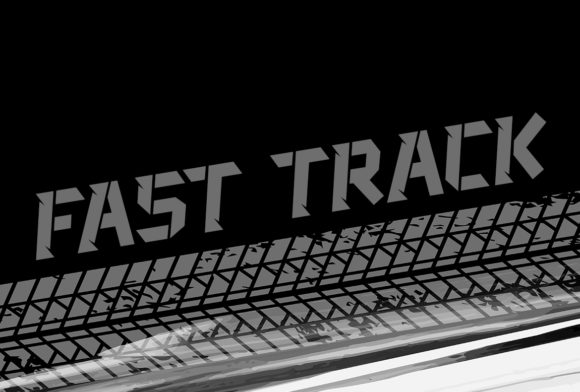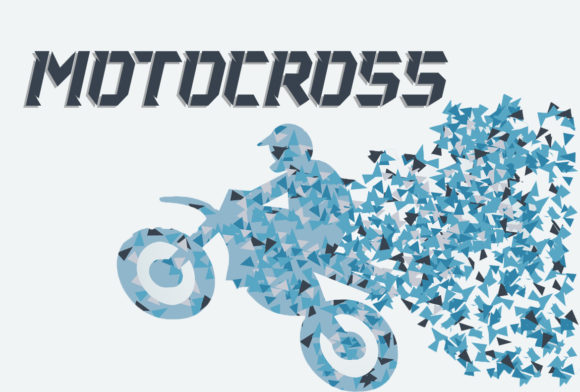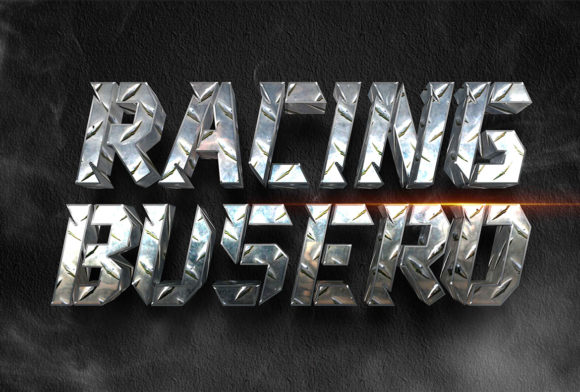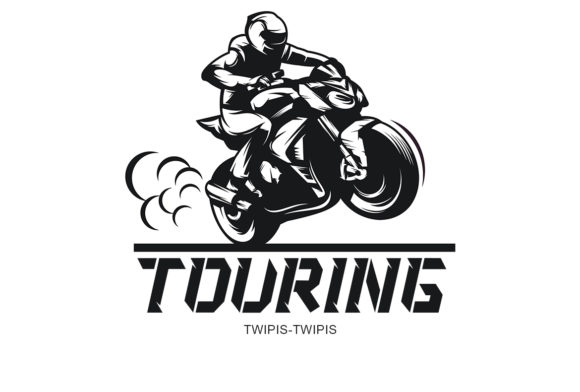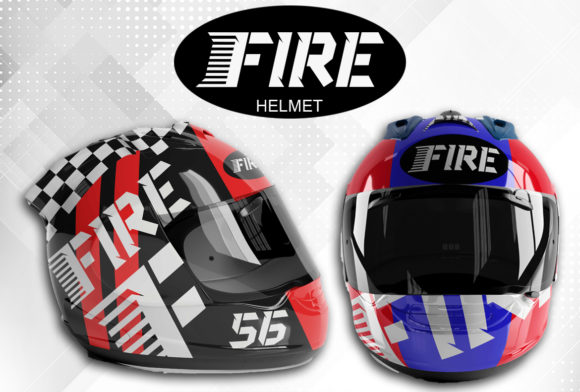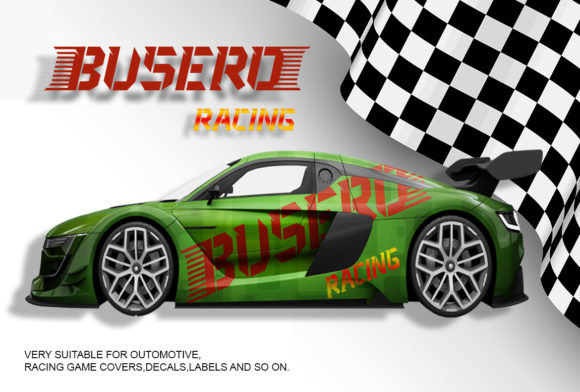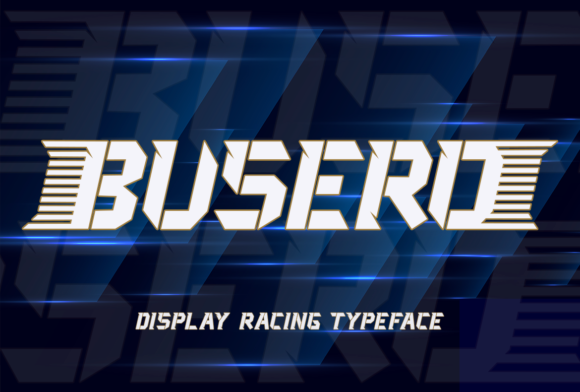
Busero Font: Elevate Your Designs with Bold and Powerful Typography
In the world of typography, fonts play a crucial role in conveying messages, expressing emotions, and creating visual identities. For designers and crafters, finding the right font can make all the difference in bringing their creative ideas to life. If you’re looking for a font that can add a touch of boldness and power to your designs, look no further than Busero Font. In this article, we’ll explore the unique features of Busero Font, its benefits, and how it can elevate your designs to the next level.
What is Busero Font?
Busero Font is a bold and powerful display font that celebrates abstract shapes in all their eclectic beauty. With its unique and eye-catching design, Busero Font is perfect for designers and crafters who want to add a touch of sophistication and elegance to their work. Whether you’re creating a logo, poster, or social media graphic, Busero Font is sure to make your designs stand out from the crowd.
Key Features of Busero Font
So, what makes Busero Font so special? Here are some of its key features:
• Bold and Powerful: Busero Font is designed to make a statement. Its bold and powerful strokes are perfect for creating eye-catching headlines, titles, and captions.
• Abstract Shapes: Busero Font celebrates abstract shapes in all their eclectic beauty. The font features unique and intricate designs that add a touch of sophistication to any design.
• Eclectic Beauty: Busero Font is all about embracing the beauty of eclecticism. The font’s abstract shapes and bold strokes come together to create a truly unique and eye-catching design.
• Versatile: Busero Font is a versatile font that can be used in a variety of design projects, from logos and posters to social media graphics and more.
Benefits of Using Busero Font
So, why should you choose Busero Font for your design projects? Here are some of the benefits of using this amazing font:
• Stand Out from the Crowd: Busero Font is designed to make your designs stand out from the crowd. Its bold and powerful strokes are sure to grab attention and leave a lasting impression.
• Elevate Your Designs: Busero Font can elevate your designs to the next level. Its unique and eye-catching design adds a touch of sophistication and elegance to any project.
• Unique and Creative: Busero Font is a unique and creative font that can add a touch of personality to your designs. Its abstract shapes and bold strokes make it perfect for designers and crafters who want to express themselves.
How to Use Busero Font
Using Busero Font is easy. Here are some tips on how to incorporate it into your design projects:
• Headlines and Titles: Use Busero Font for headlines and titles to add a touch of boldness and power to your designs.
• Logos and Branding: Busero Font is perfect for logos and branding projects. Its unique and eye-catching design makes it easy to create a memorable and recognizable brand identity.
• Posters and Flyers: Use Busero Font for posters and flyers to grab attention and create a lasting impression.
• Social Media Graphics: Busero Font is perfect for social media graphics, including Facebook posts, Instagram stories, and more.
In conclusion, Busero Font is a bold and powerful display font that can elevate your designs to the next level. Its unique and eye-catching design makes it perfect for designers and crafters who want to add a touch of sophistication and elegance to their work. With its versatility, ease of use, and creative possibilities, Busero Font is a must-have font for any designer or crafter looking to make a statement. So why wait? Add Busero Font to your creative arsenal today and notice how it makes your designs stand out!